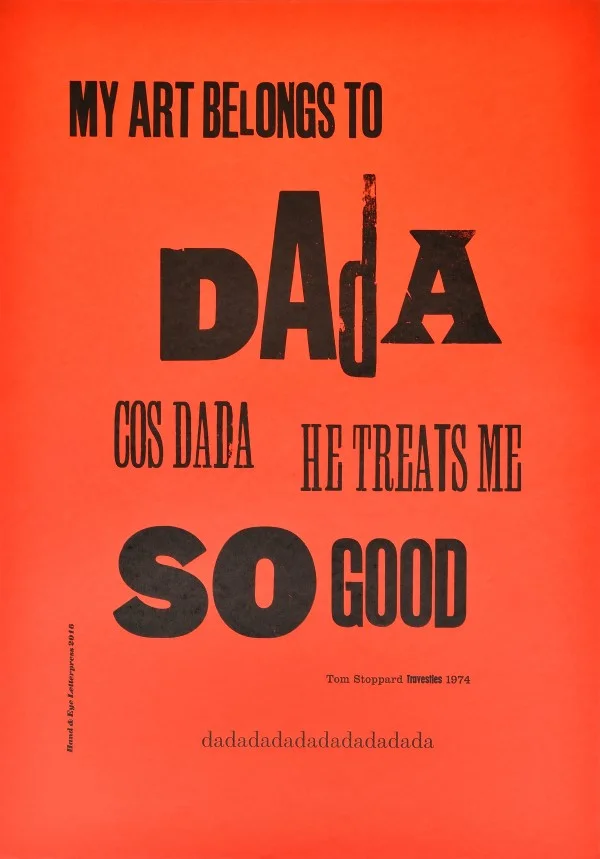
‘My art belongs to Dada cos Dada he treats me so good’ is a quote from Tom Stoppard’s play Travesties 1974
This fine art print was designed and hand printed at Hand & Eye Letterpress.
The edition was printed using wood and metal type on red paper on a FAG Control 525 proofing press at Hand & Eye's London studio.